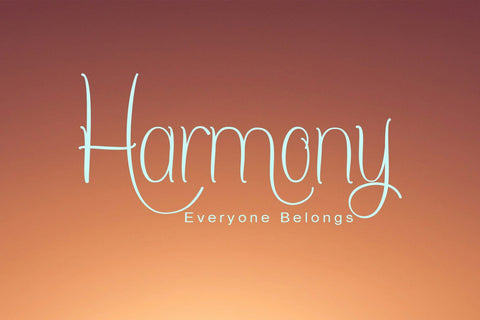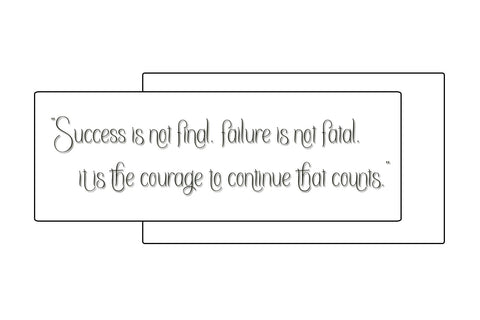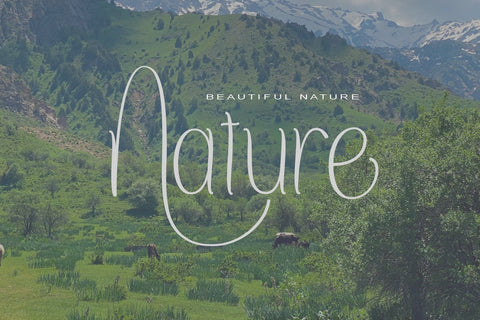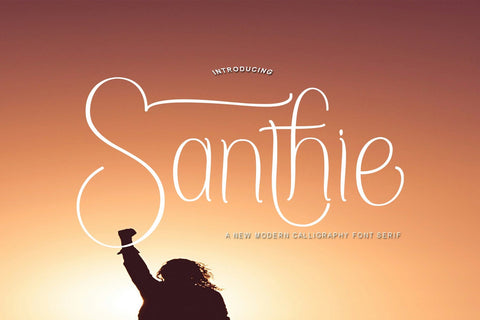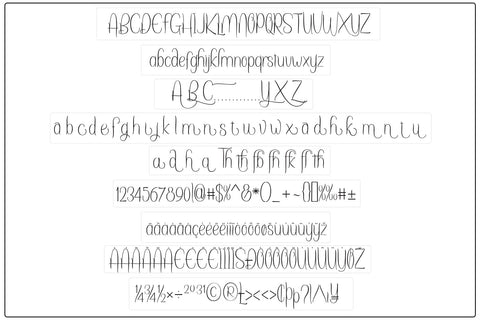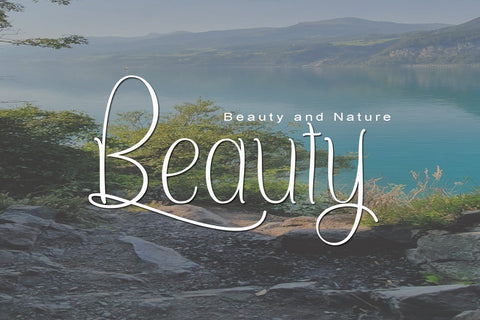
SANTHIE
SANTHIE is new sans serif font has a sleek typeface, font is very simple and easy to manipulate: logos, slogan and made in advertising messages,wedding invitation, t-shirt, letterhead, signage, lable, news, posters, badges etc.